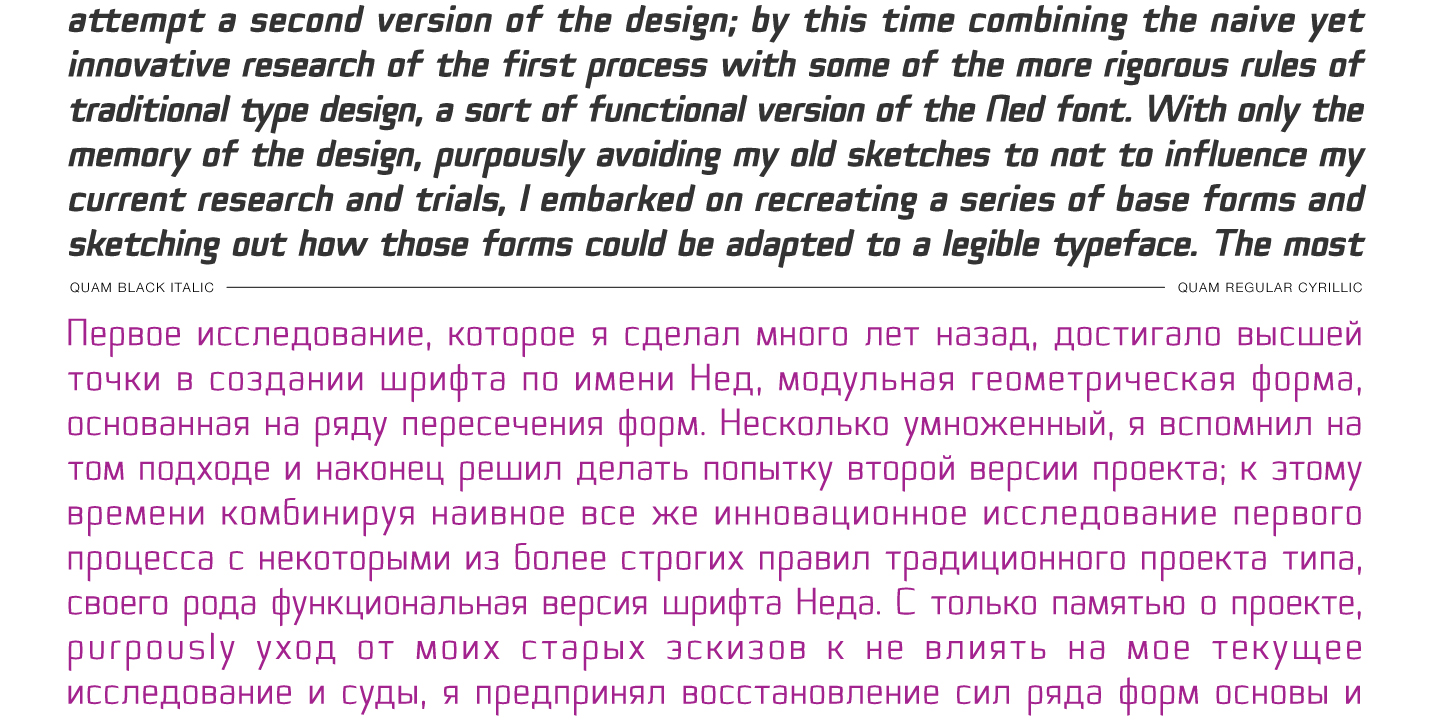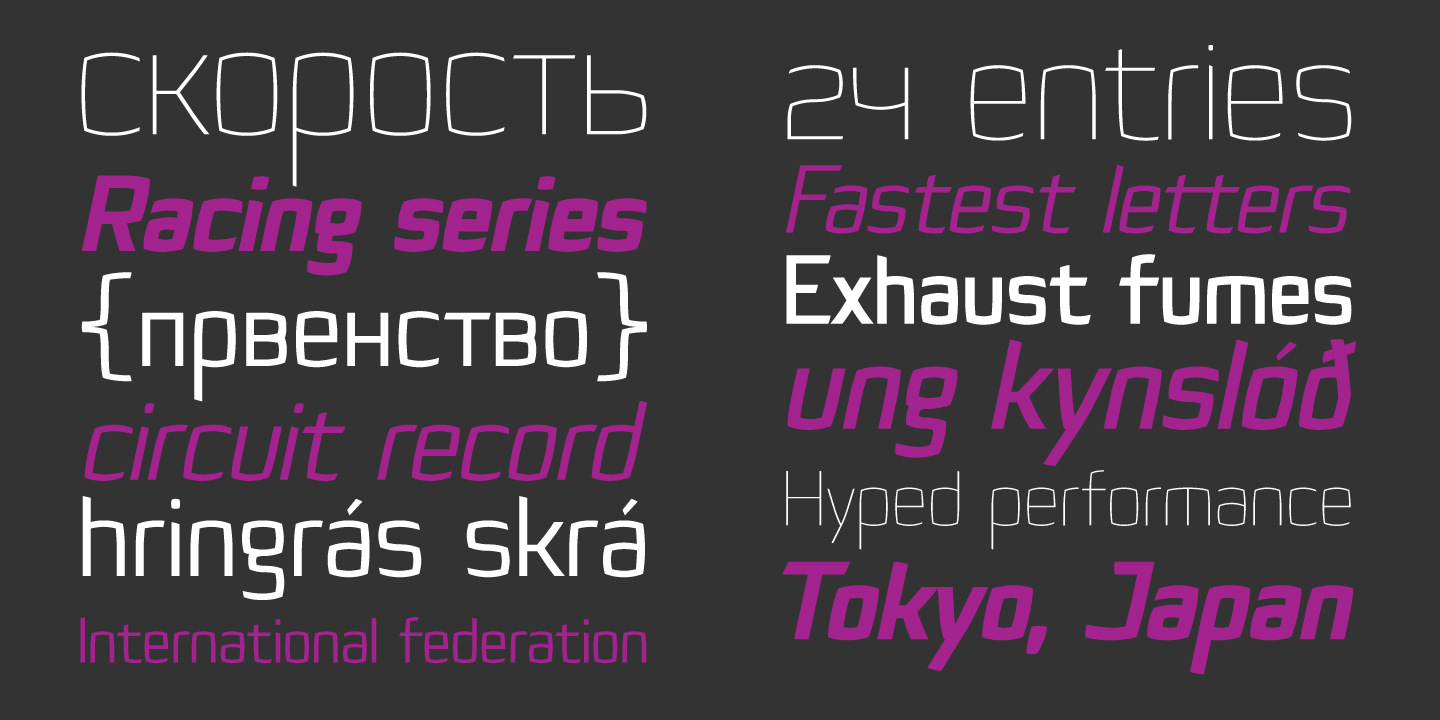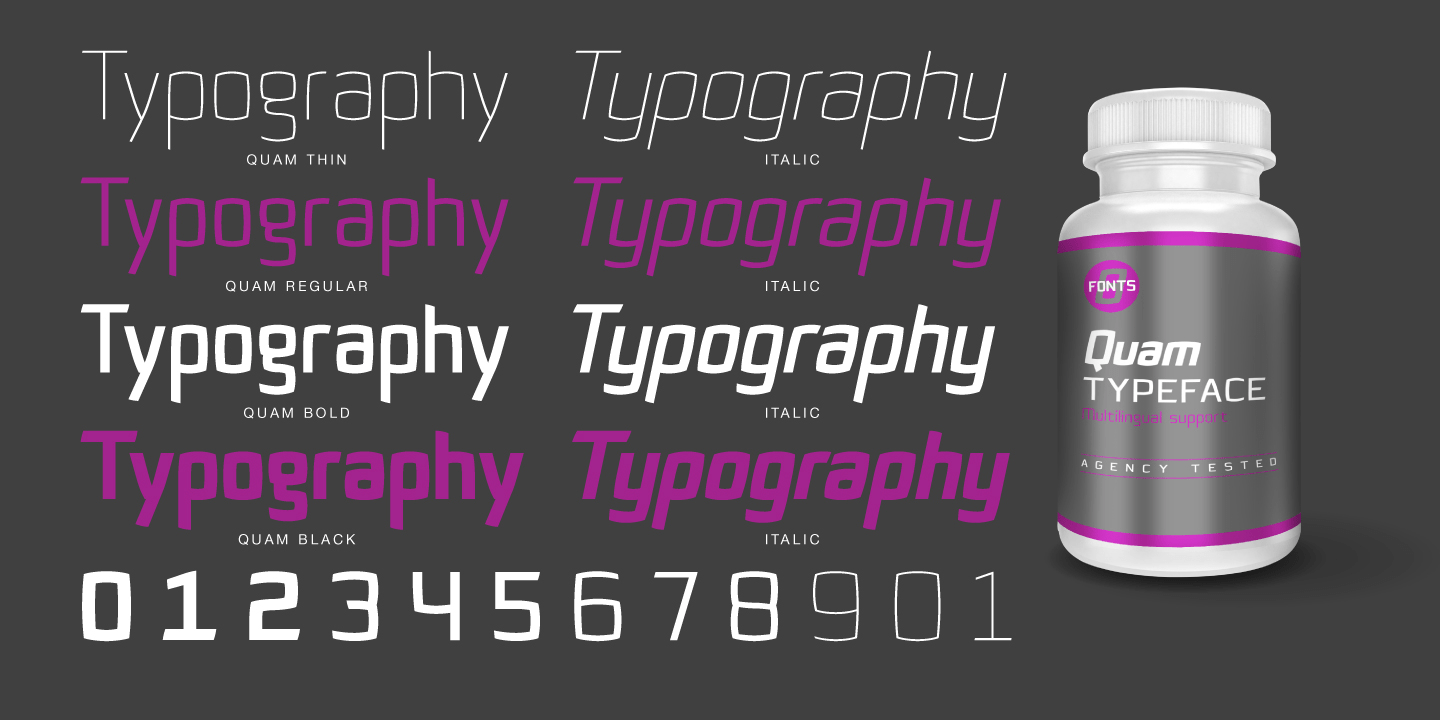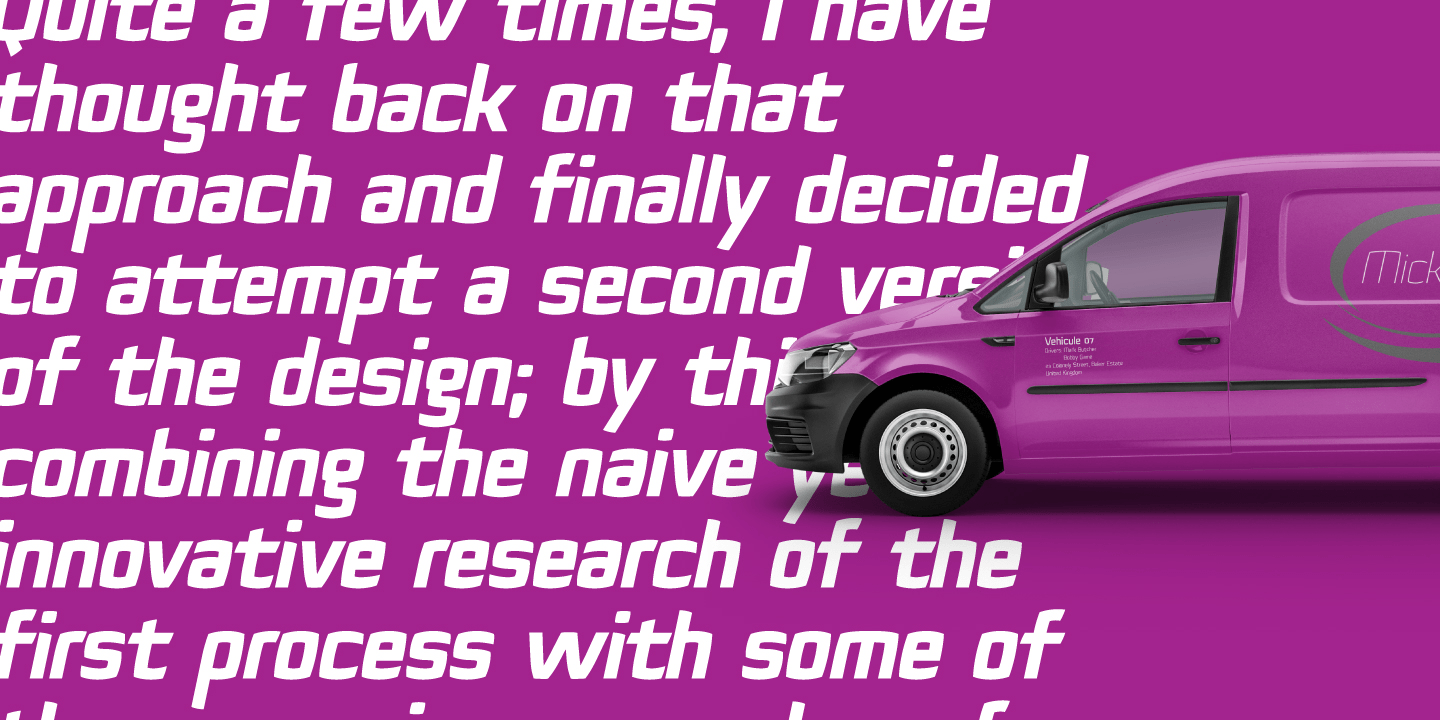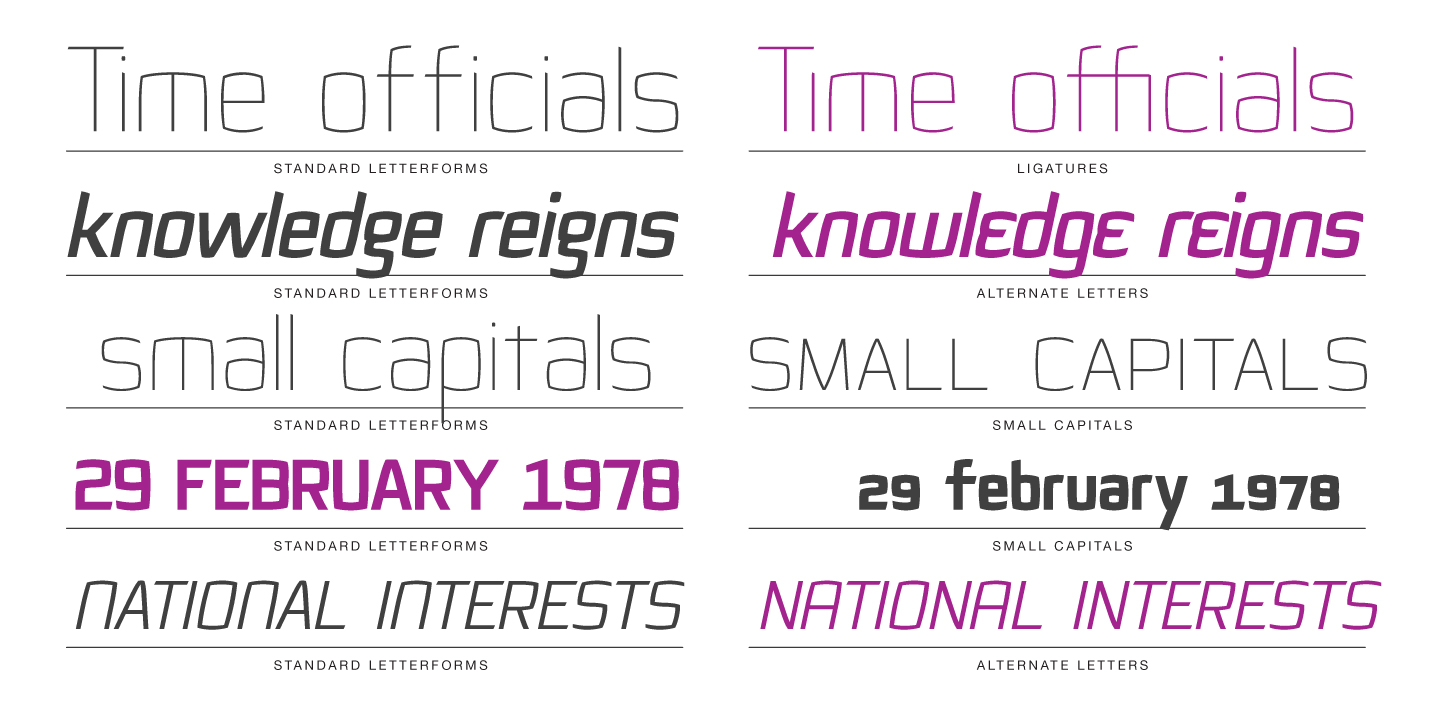
About Quam
Quam is a contemporary sans serif typeface, designed to be used as either a display or text font. With a range of alternates, true small capitals and variable numerals, this design aims to be versatile and functional. An added function is the inclusion…